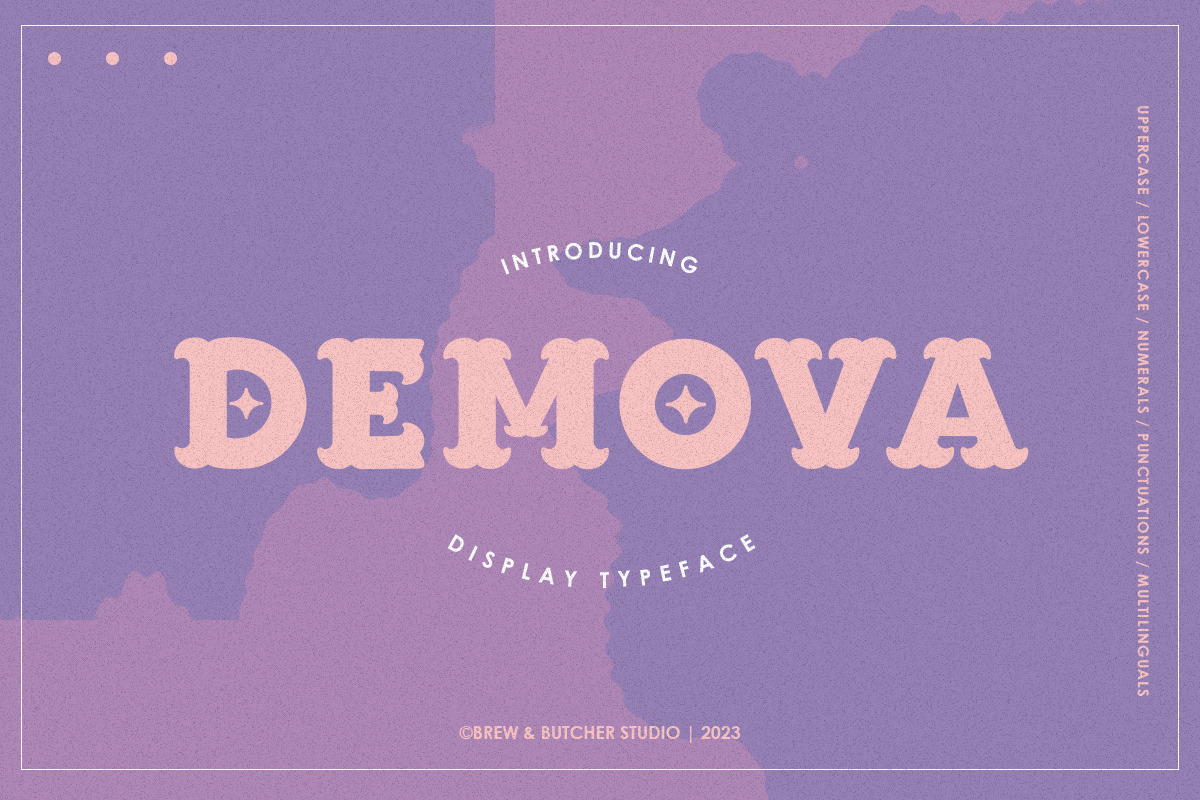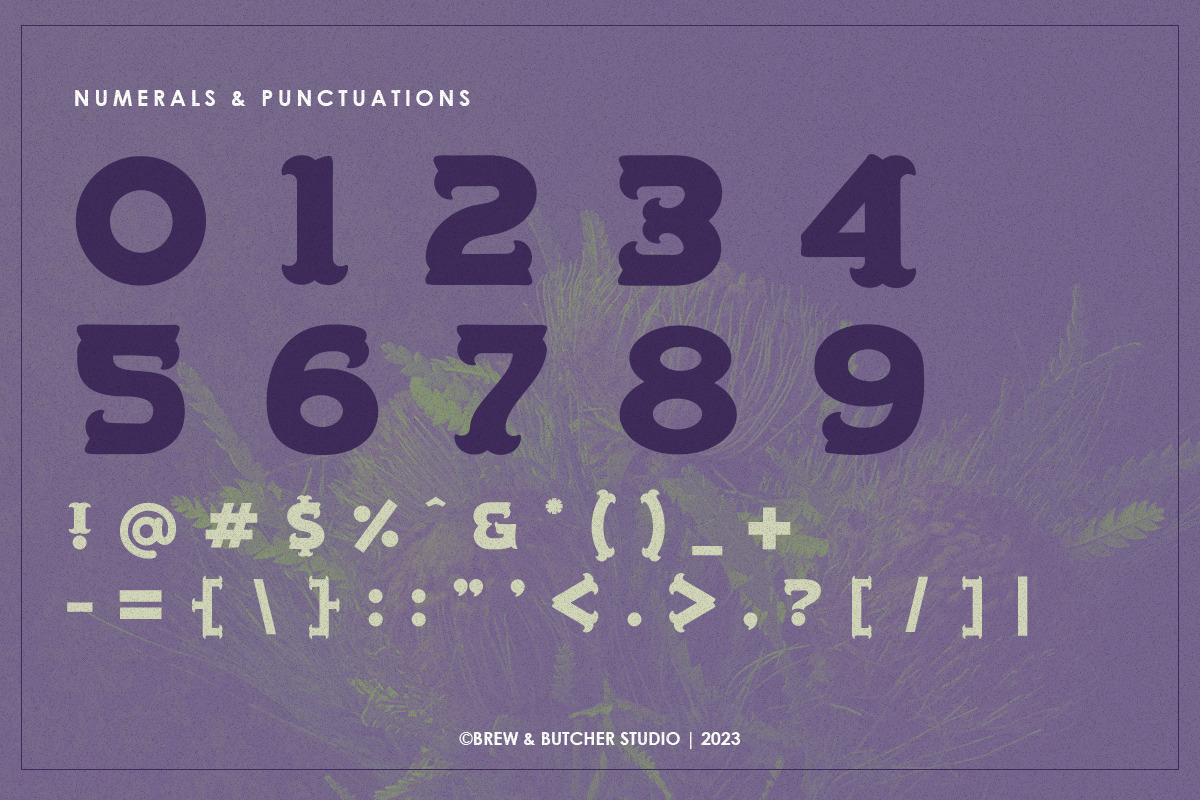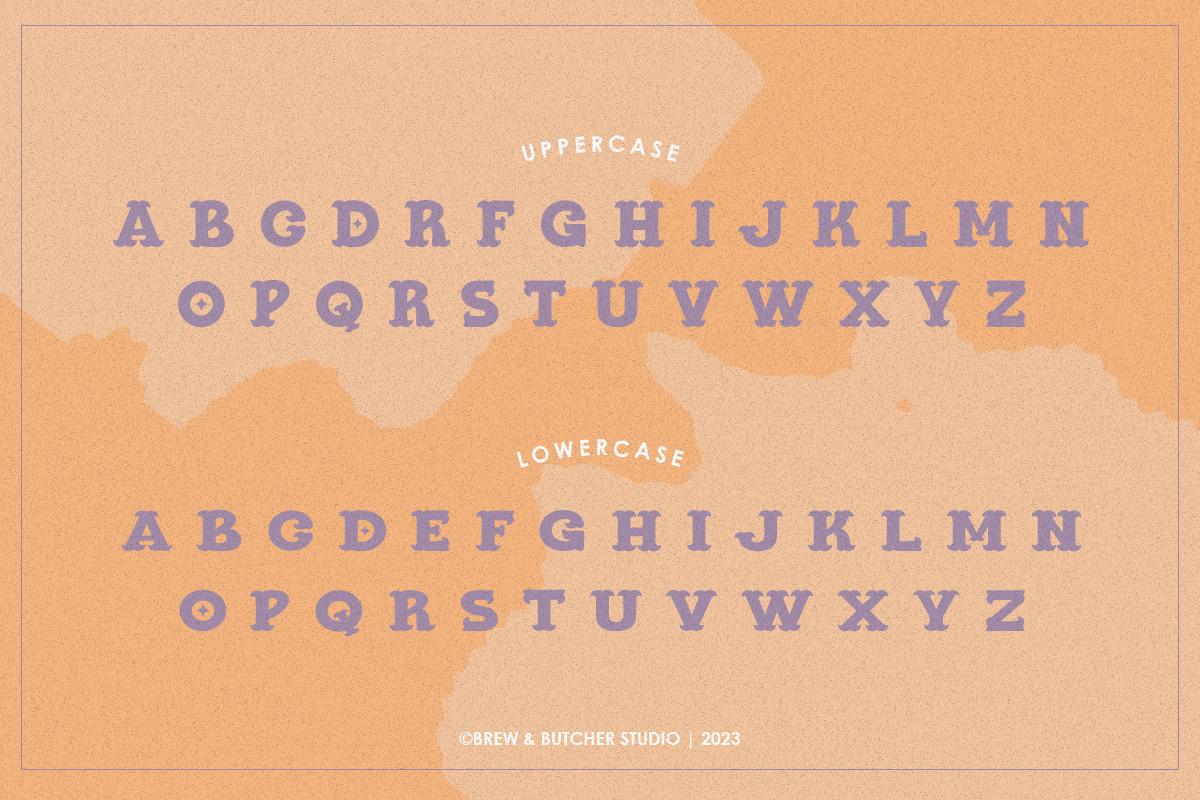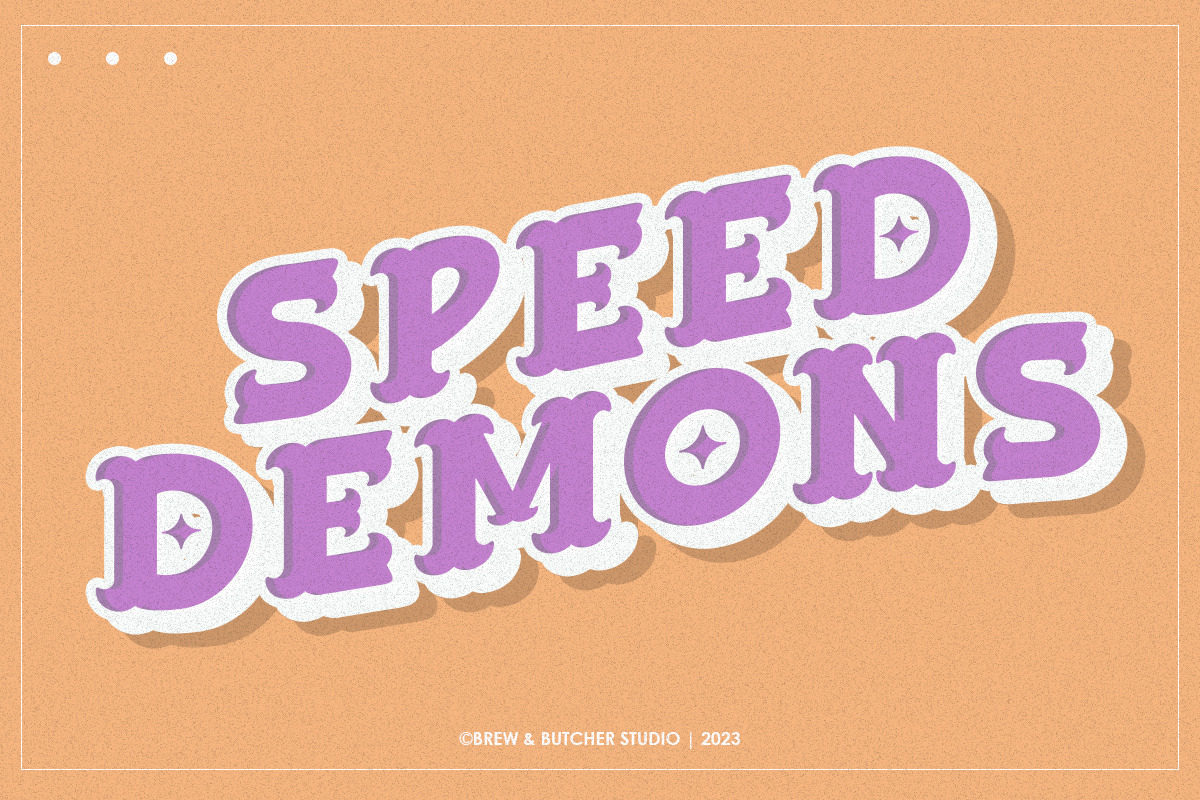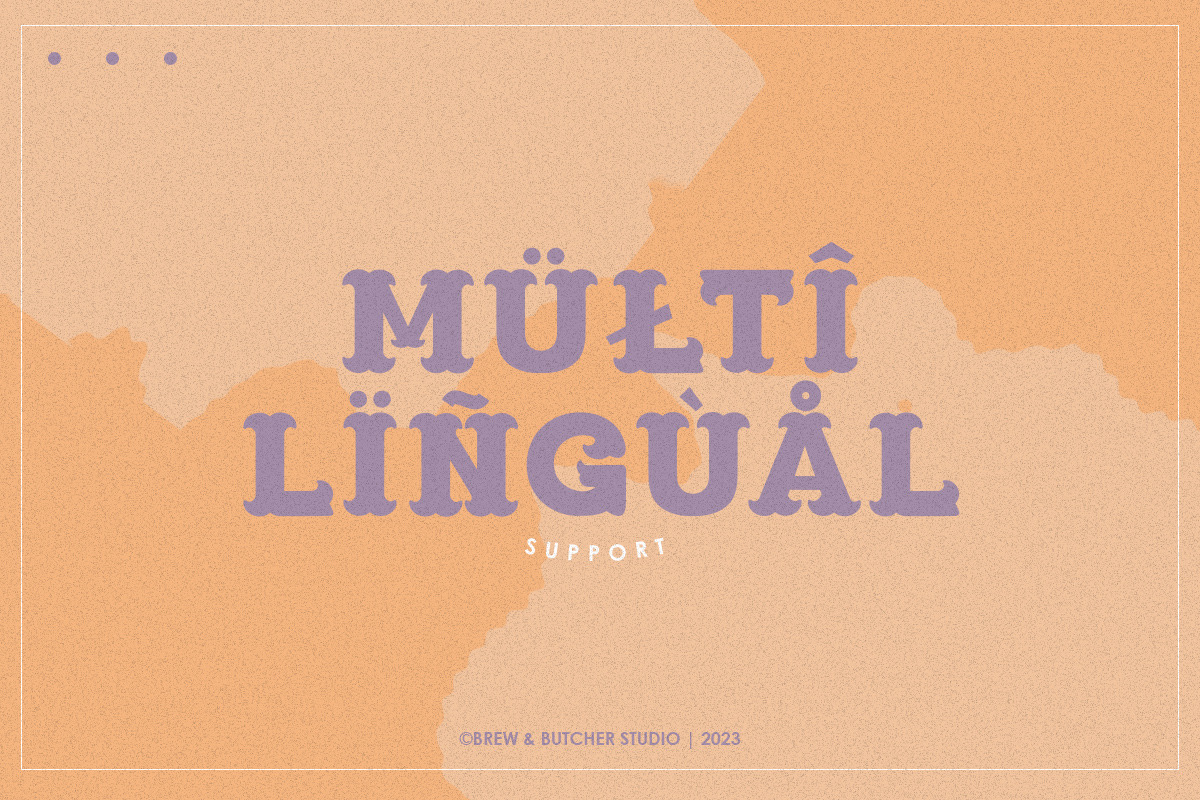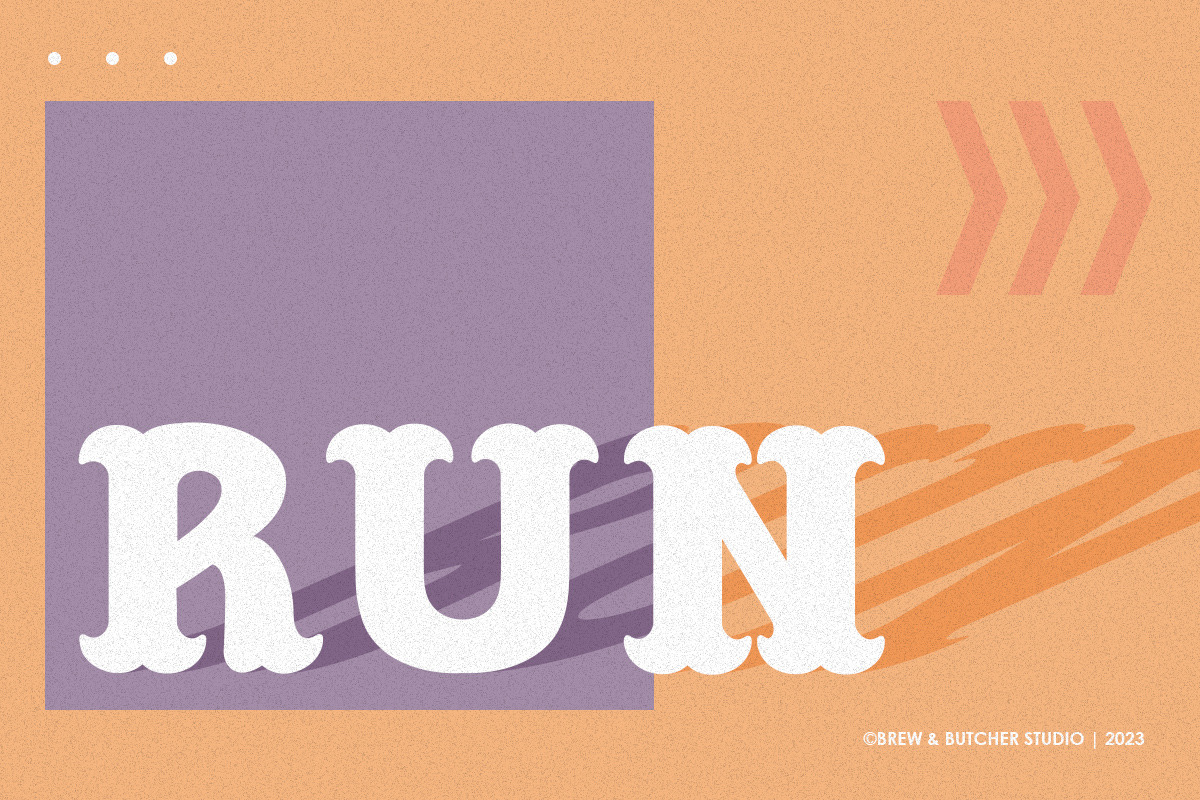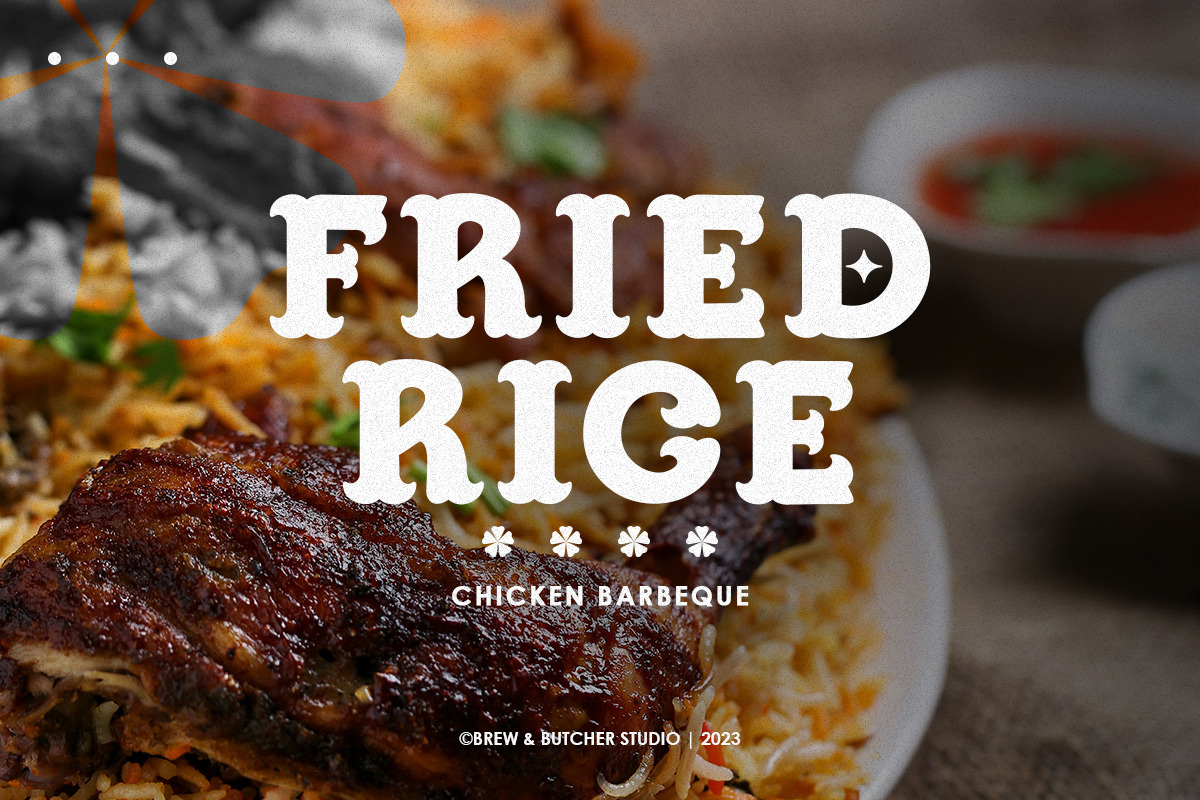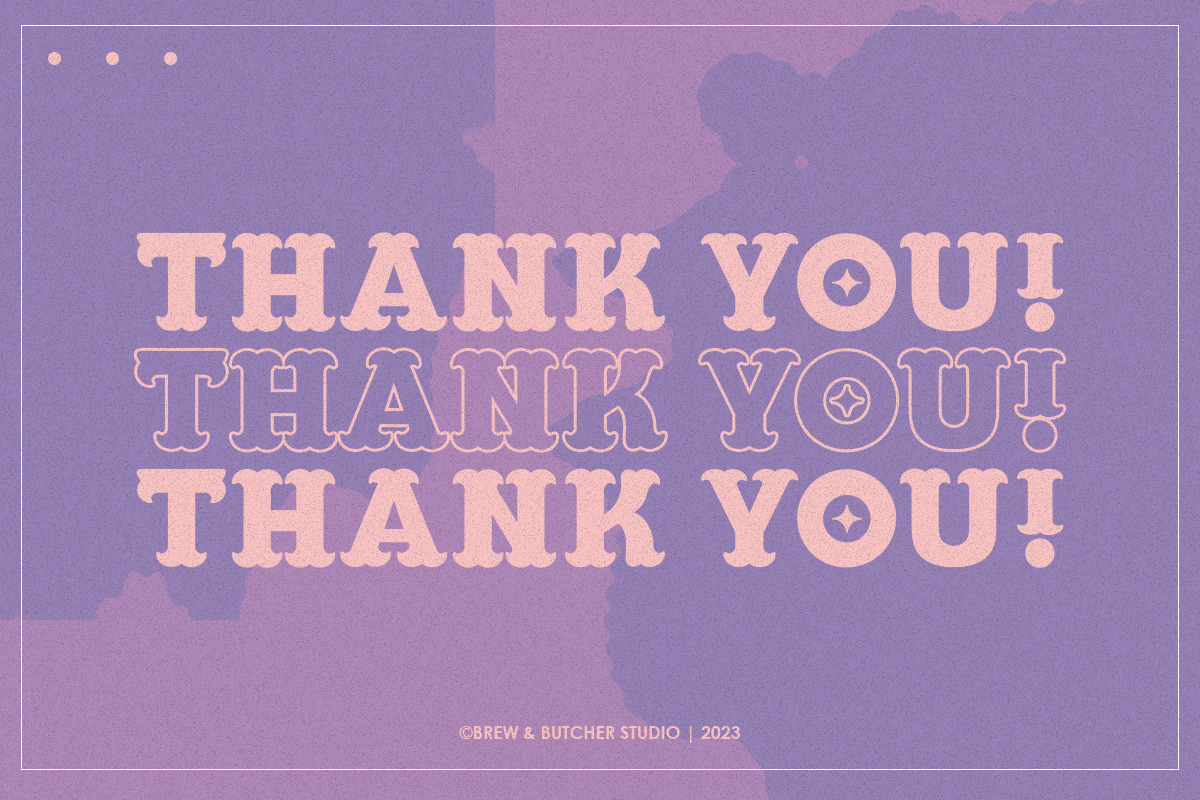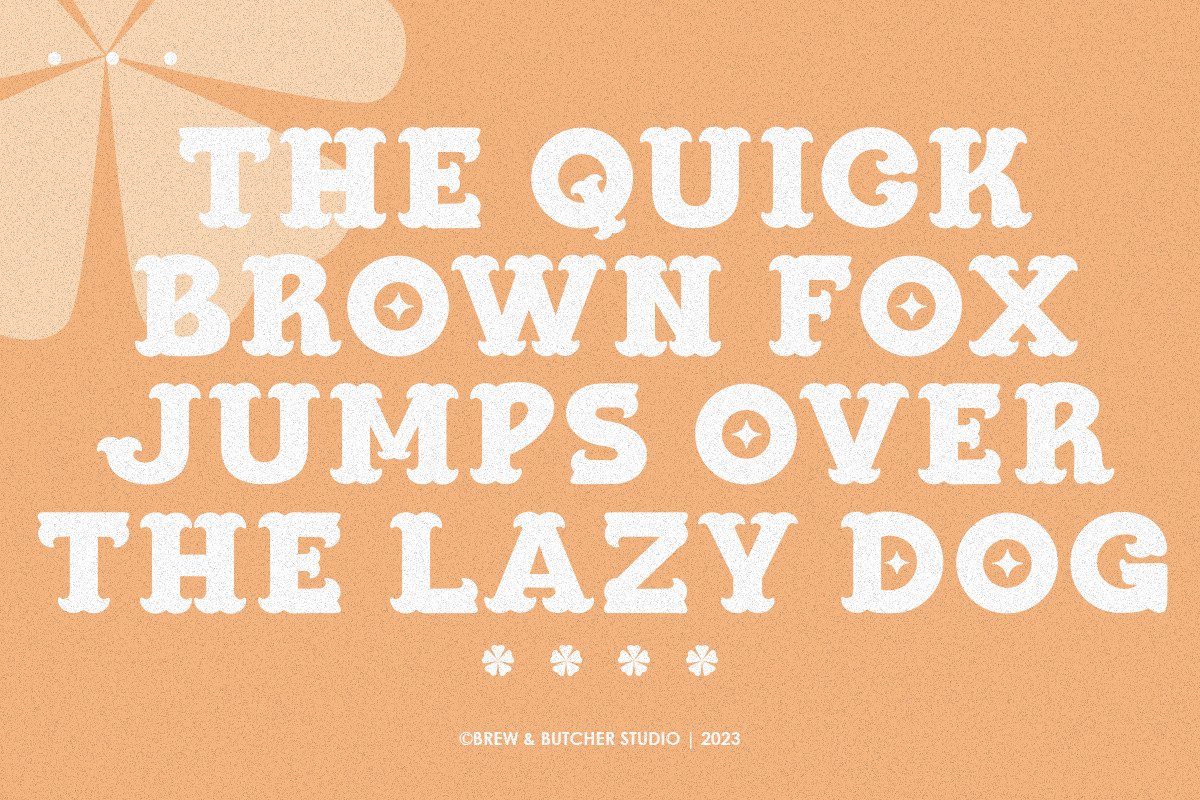
Demova | Display Typeface
Demova is a letter based on serif style, inspired by a classic western font and modern typeface, which gives an elegant impression. Have a bold character in each of the lines and unique in each curves. This font is best to use for header or headline, poster, flyer, banner, landingpage, portfolio, name write, album covers, and etc.
- Multilanguage